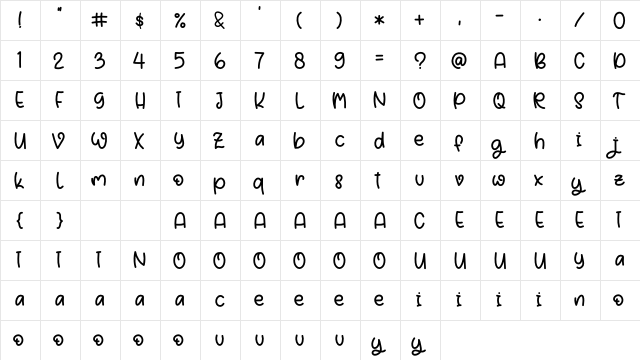
Boyish Regular
| Foundry | Alghul |
| Designer | Alghul |
Design Context for Boyish Typeface
Boyish is a composed and adaptable typeface that performs quietly and consistently across a wide range of design contexts.